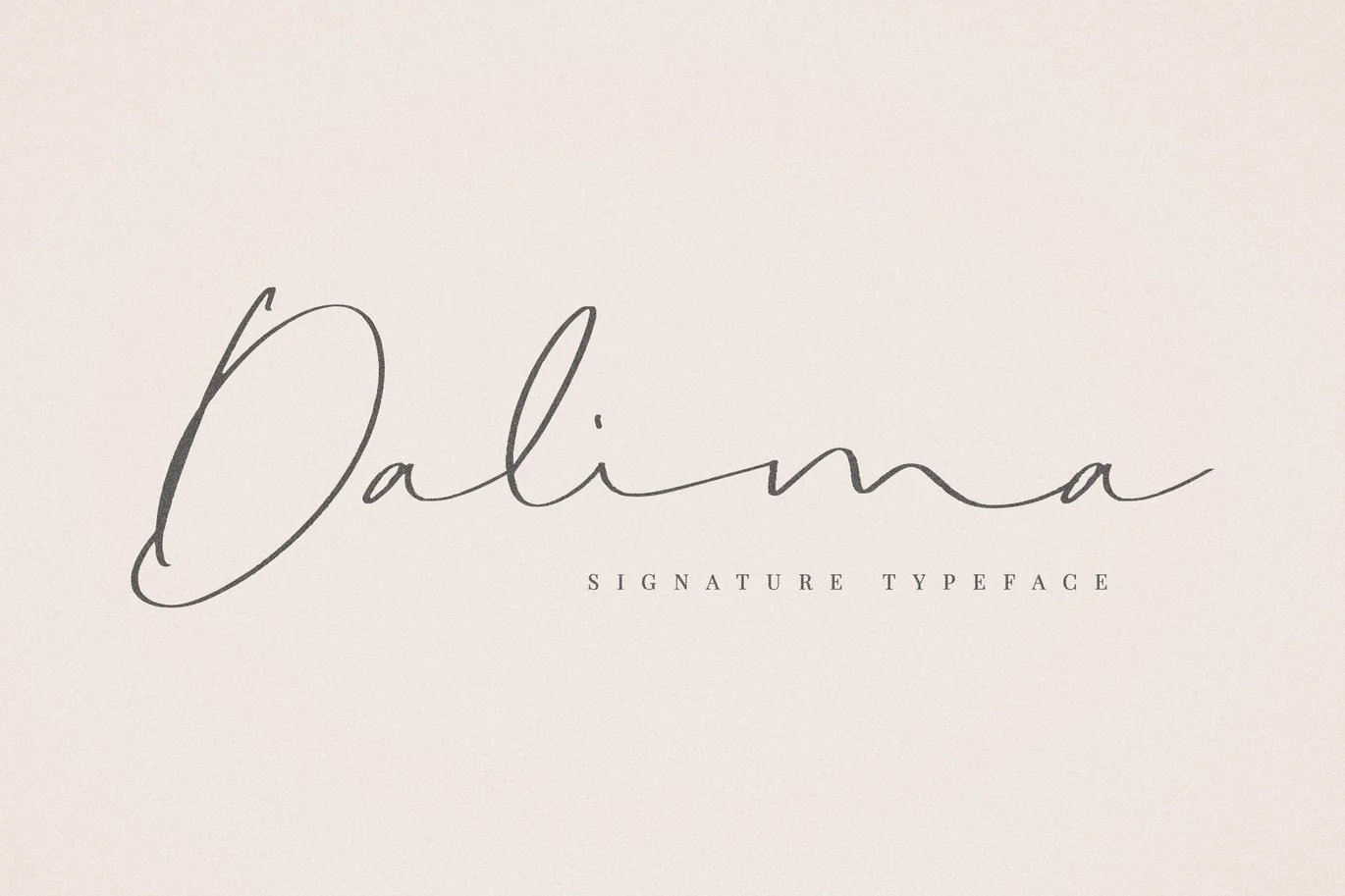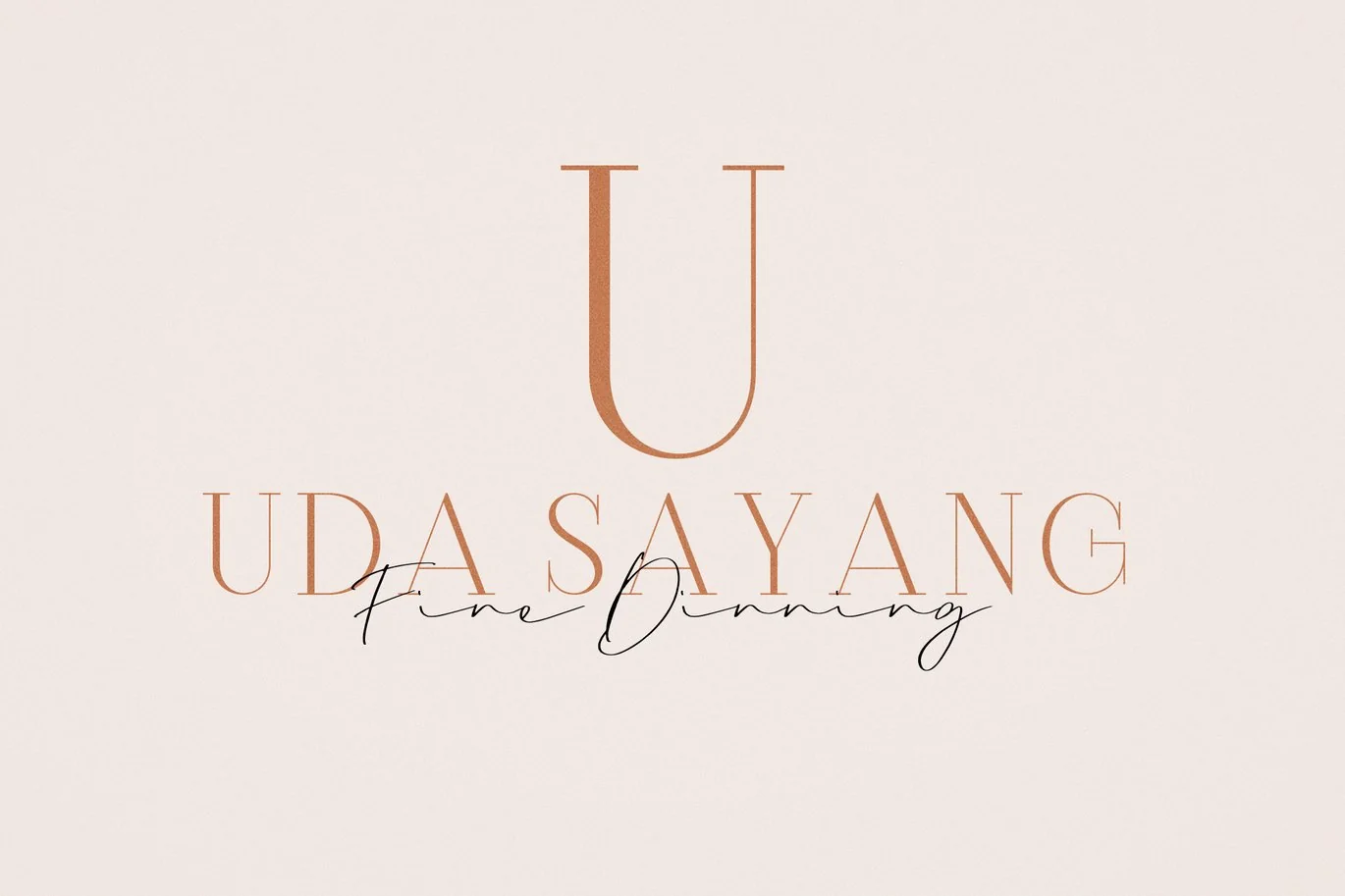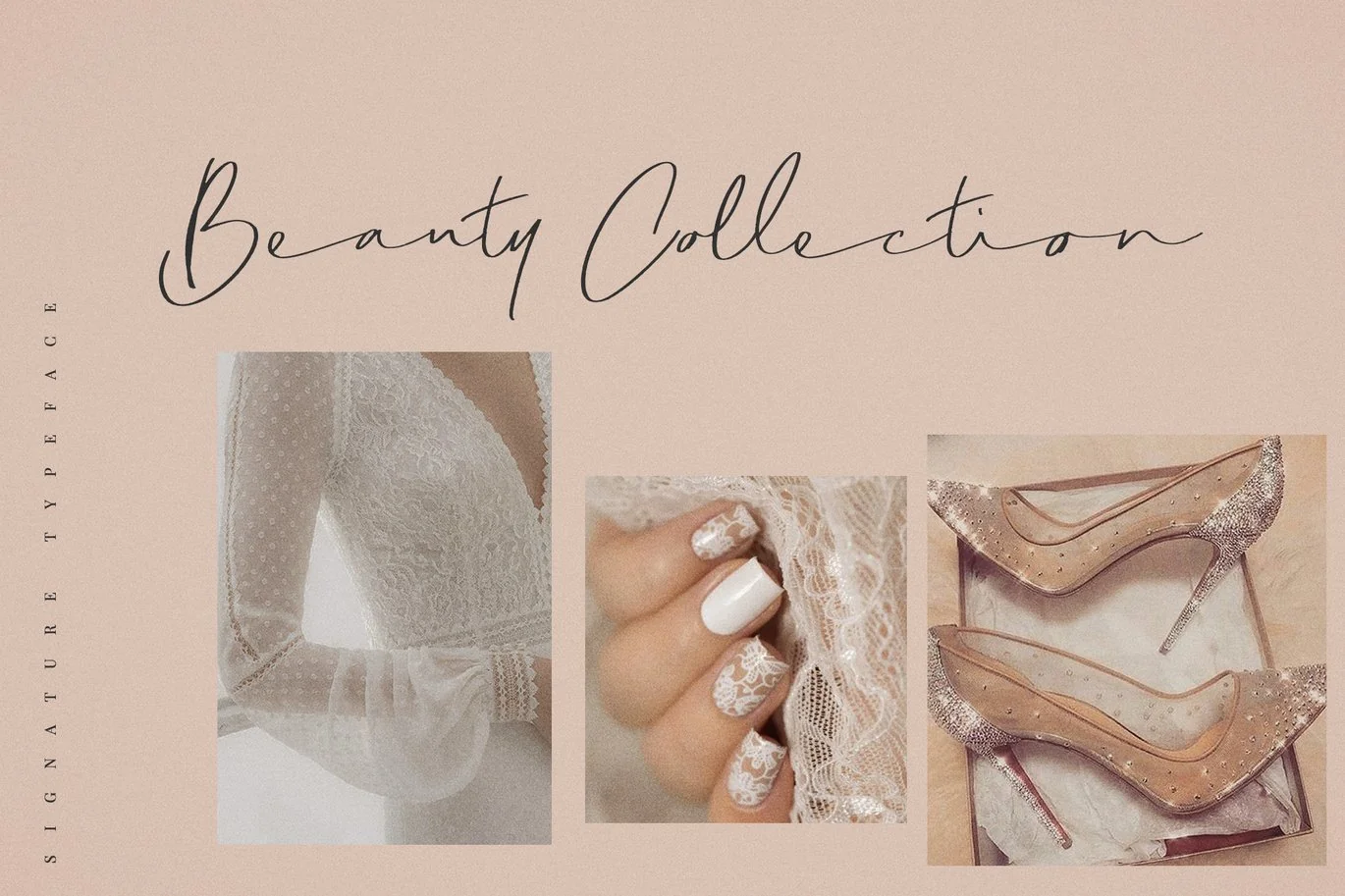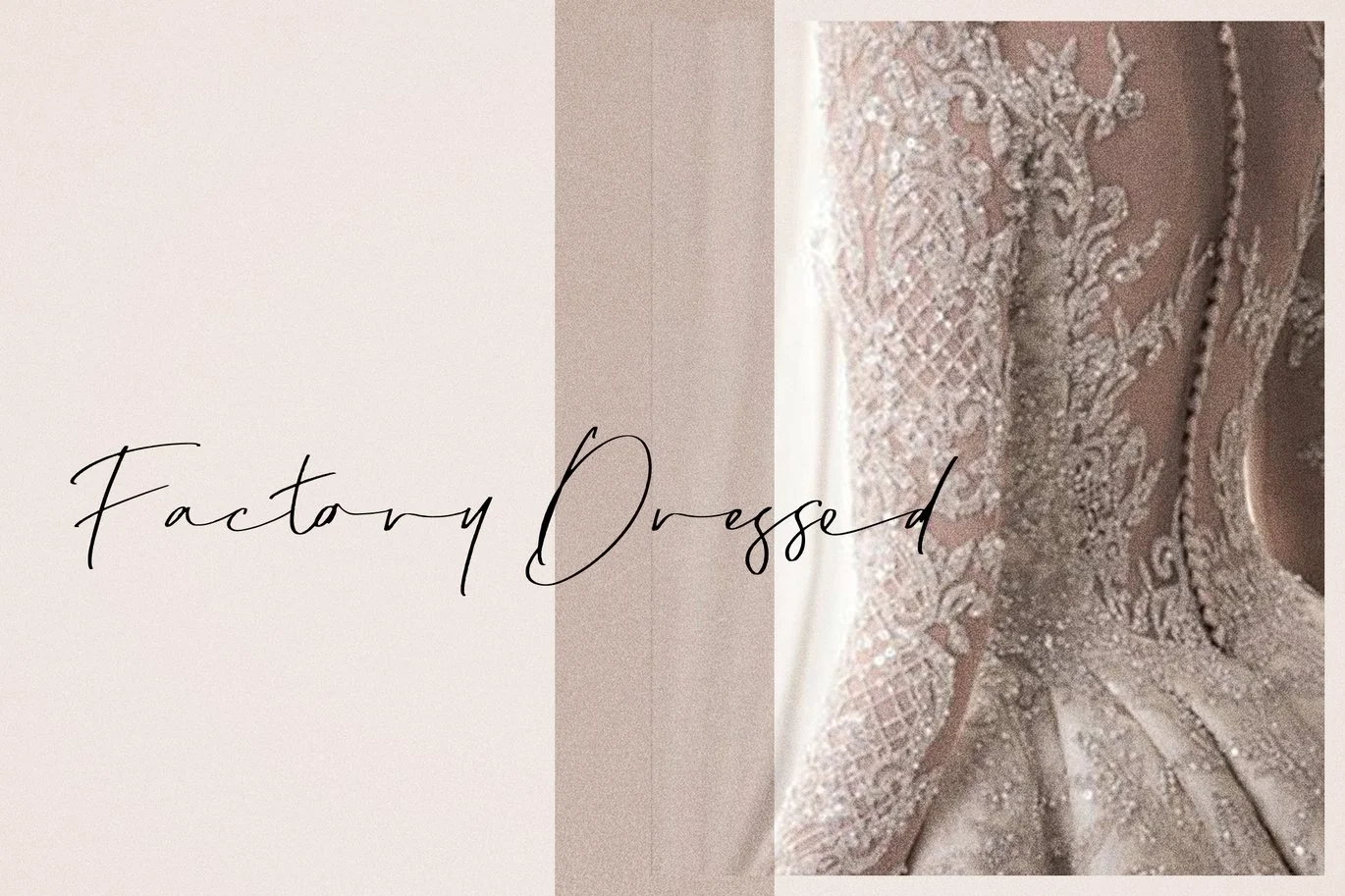
Dalima Signature Font
Dalima font is made with a very natural writing techniques that look beautiful and elegant, this font is very suitable to be used to brand a product because if we write a brand name will look like our company signature. this is perfect for bloggers, trademarks, magazines, fashion, wedding invitations, greeting cards and much more
Dalima fonts has alphabetic type A-Z and a-z ” this is perfect if used individually this font also has a lot of ligature and will automatically produce a very natural writing as we write it.
Dalima Font features with :
- Basic Glyphs, Numerals, Symbol and punctuation
- Standart Ligatures
- Multilingual Support ( ALL EUROPE LANGUANGE )